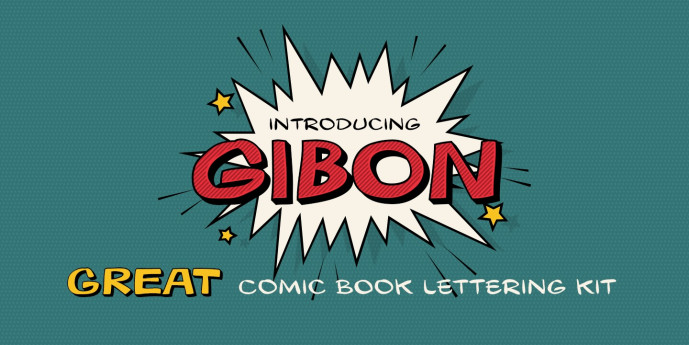
Gibon Comic Font Family
Gibon Comic Font Family draws inspiration from the fascinating comic book universe, inhabited not only by many legendary superheroes, monsters and superbadass antiheroes, but also by its own legendary typefaces. Every cartoonist and hand letterer needs a pencil, a T-square and on and on. For digital lettering, books Gibon is an option. This handy toolkit helps you easily letter your comic strips, but even if you have nothing to do with cartooning, this bundle can simply add some comic book feel to your design or make some noise with layered sound effects. The basic font for speech balloon inking is Gibon Lettering, while Gibon Bold and Heavy let you emphasize certain text. Gibon Bold is further developed as a multilayer type where different styles are designed to be overlaid on top of each other, letting you work with built-in shadows, 3D effects and outlines to create striking SFX. Gibon Balloons offers different types of layered speech balloons and a few halftone patterns. The OpenType contextual alternate feature is set to automatically apply the random effect using two sets of glyphs. Traditionally, comic books are lettered in caps only, which explains why Gibon is an all caps font. To easily access alternate characters they are encoded as lowercase letters. For example, type the uppercase “I” to access the crossbar “I” and the lowercase “i” to access the crossbar-less “I”. Turn on stylistic set number one to use only crossbar-less “I”.